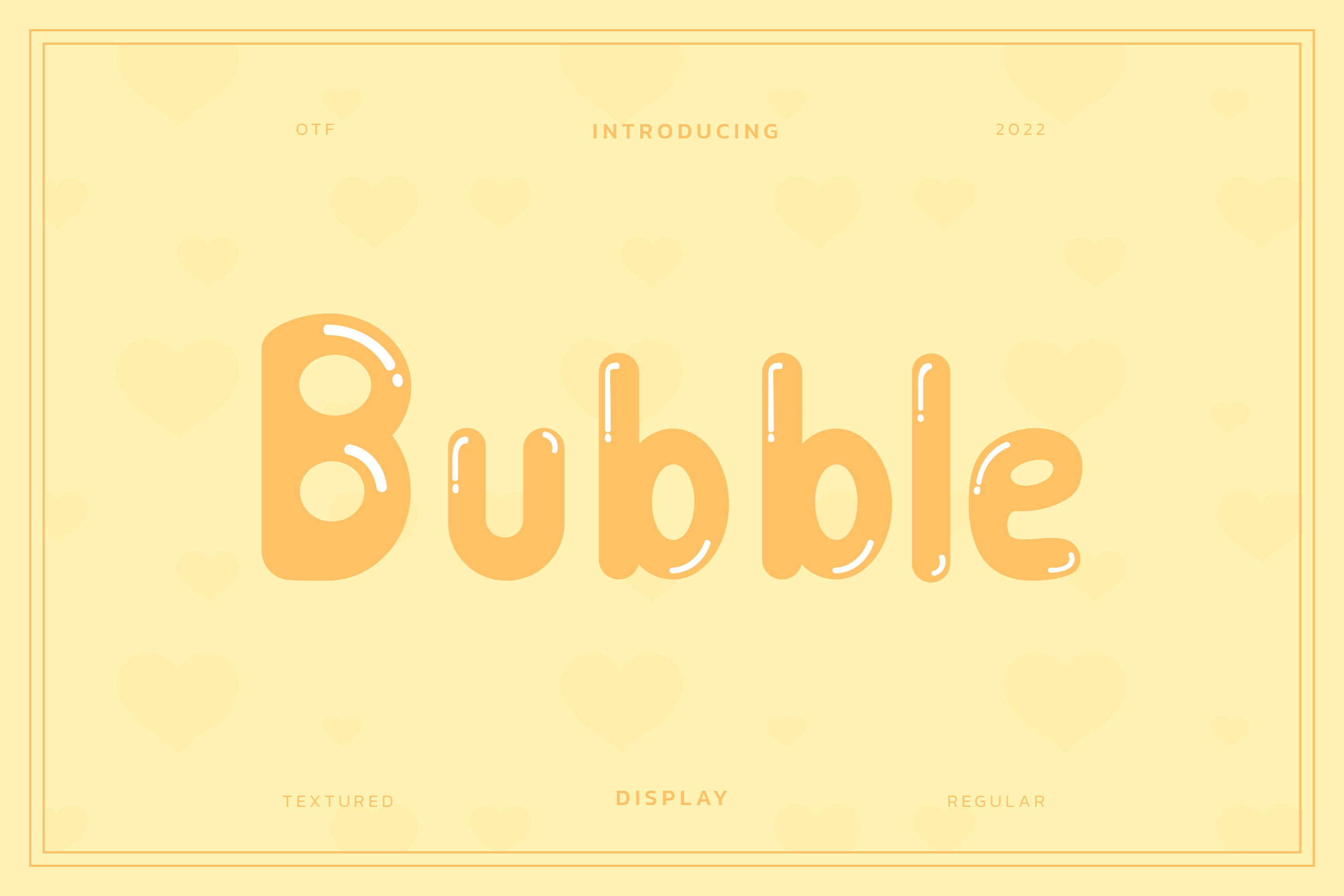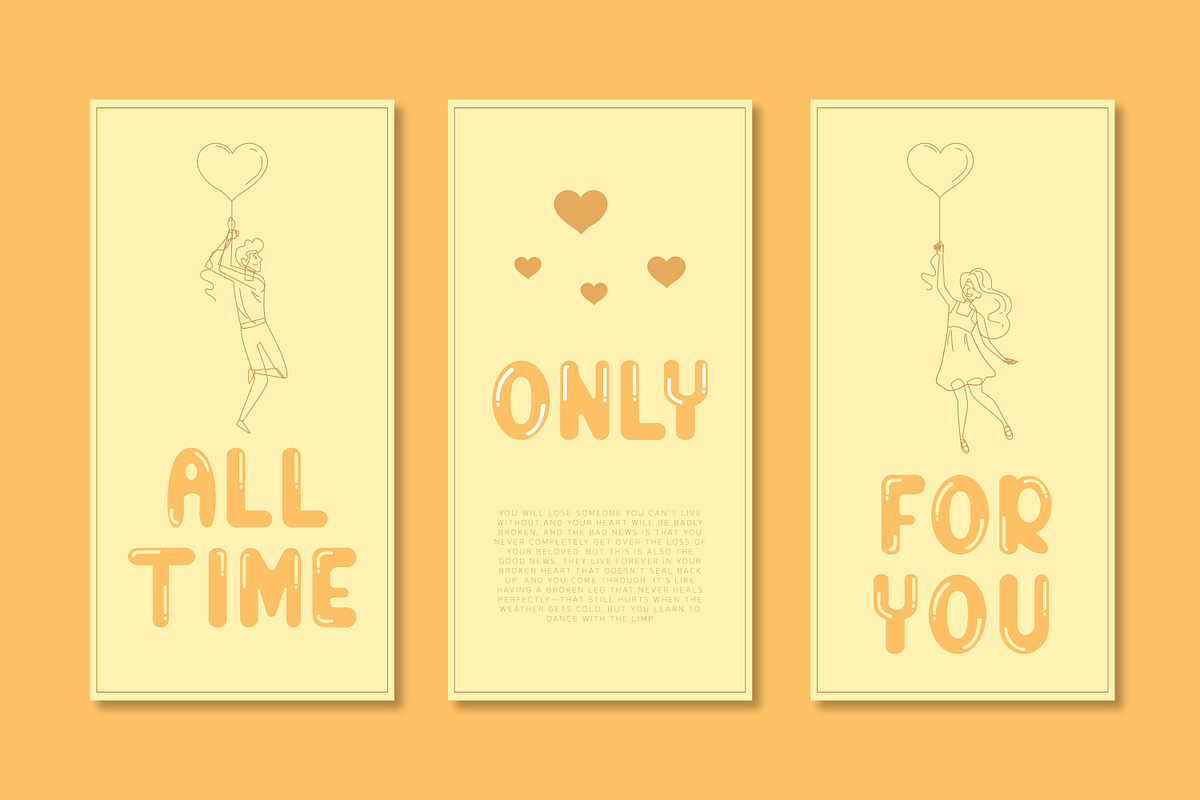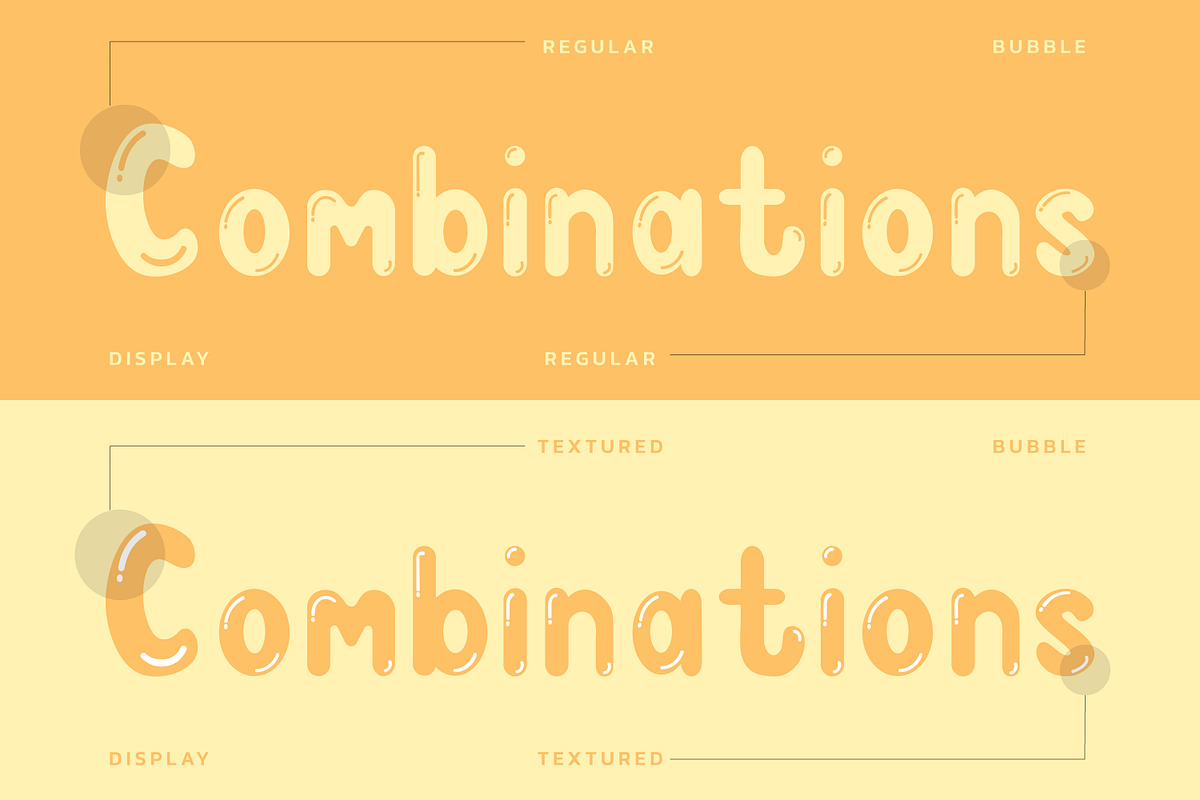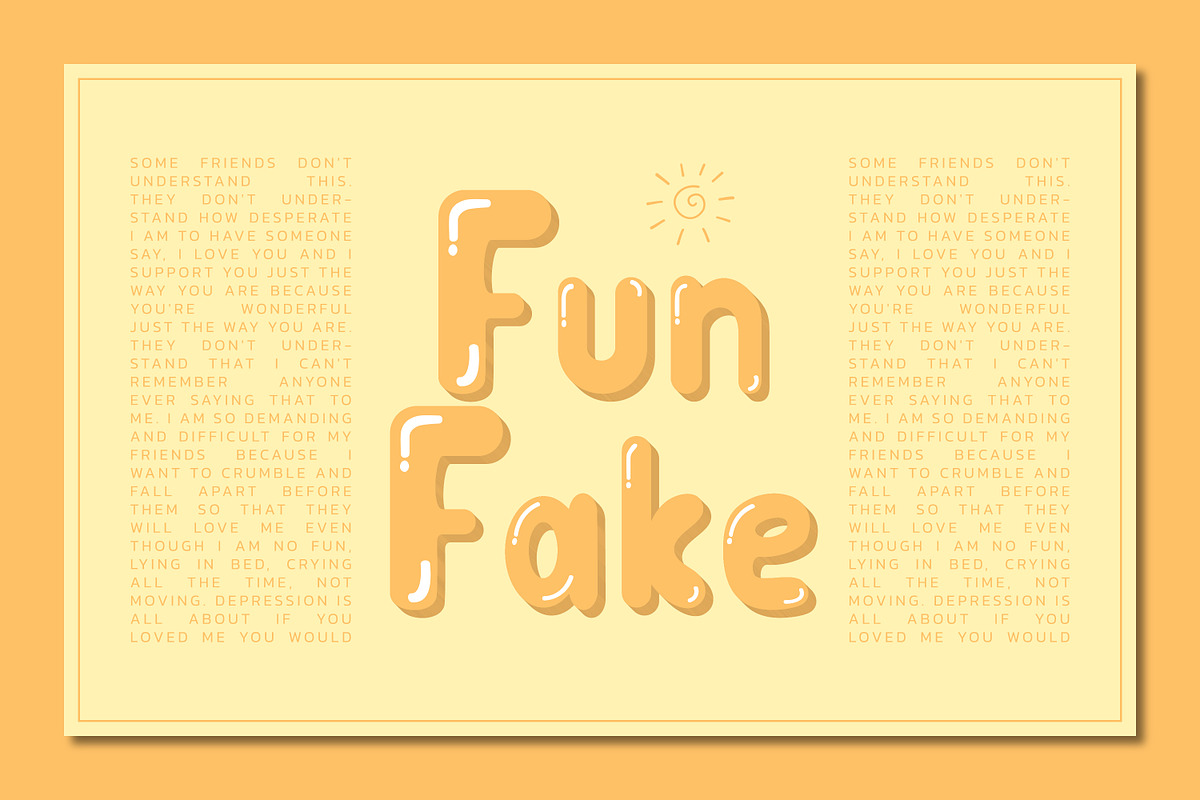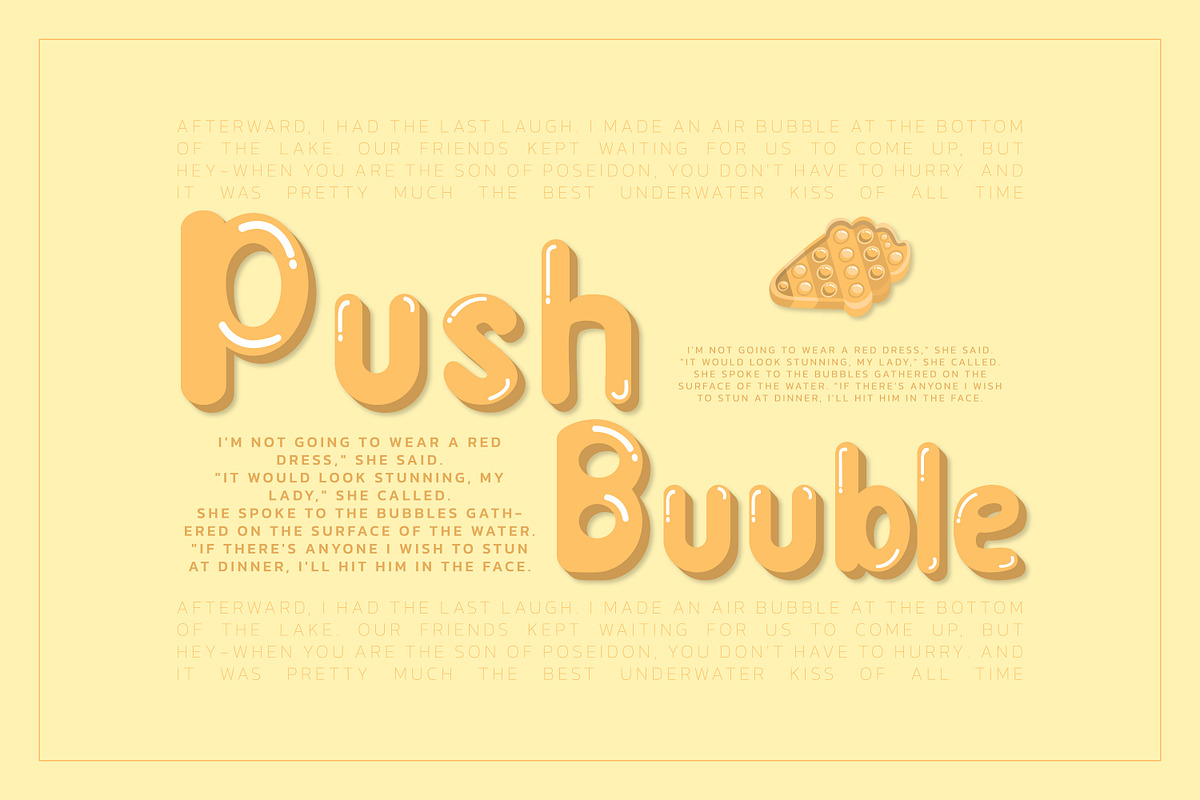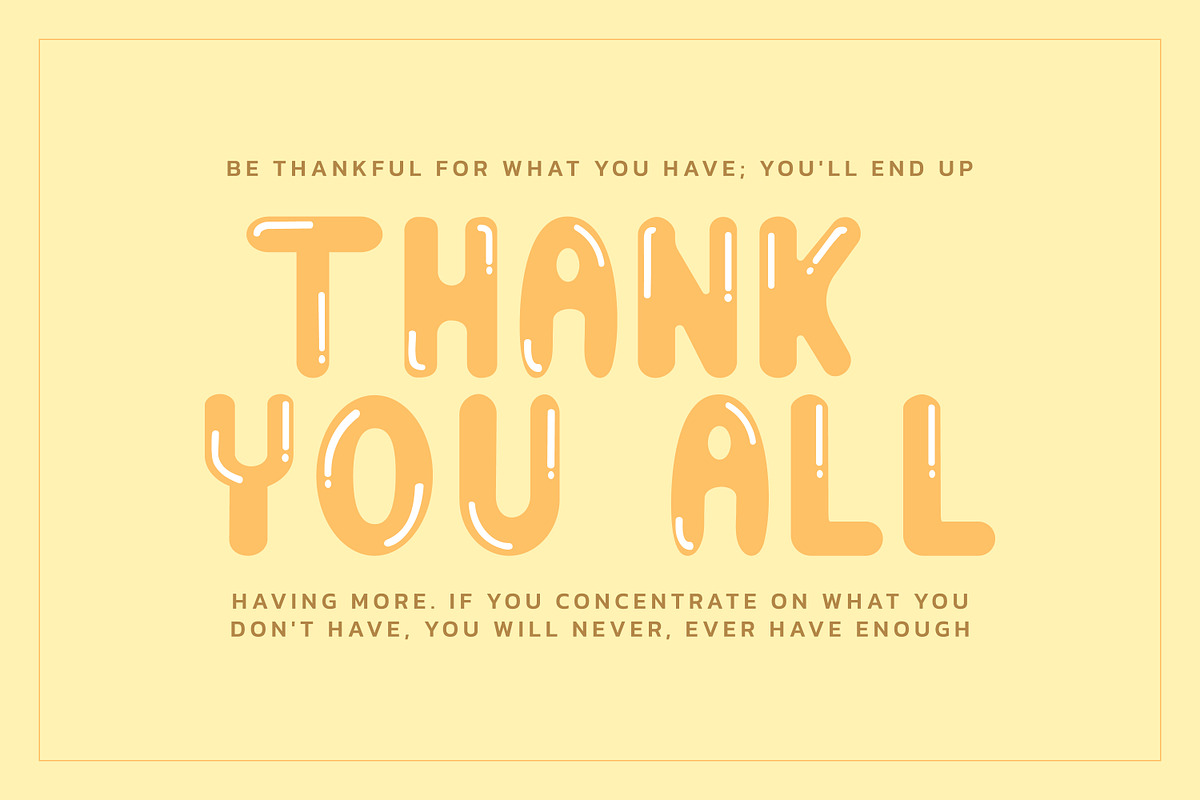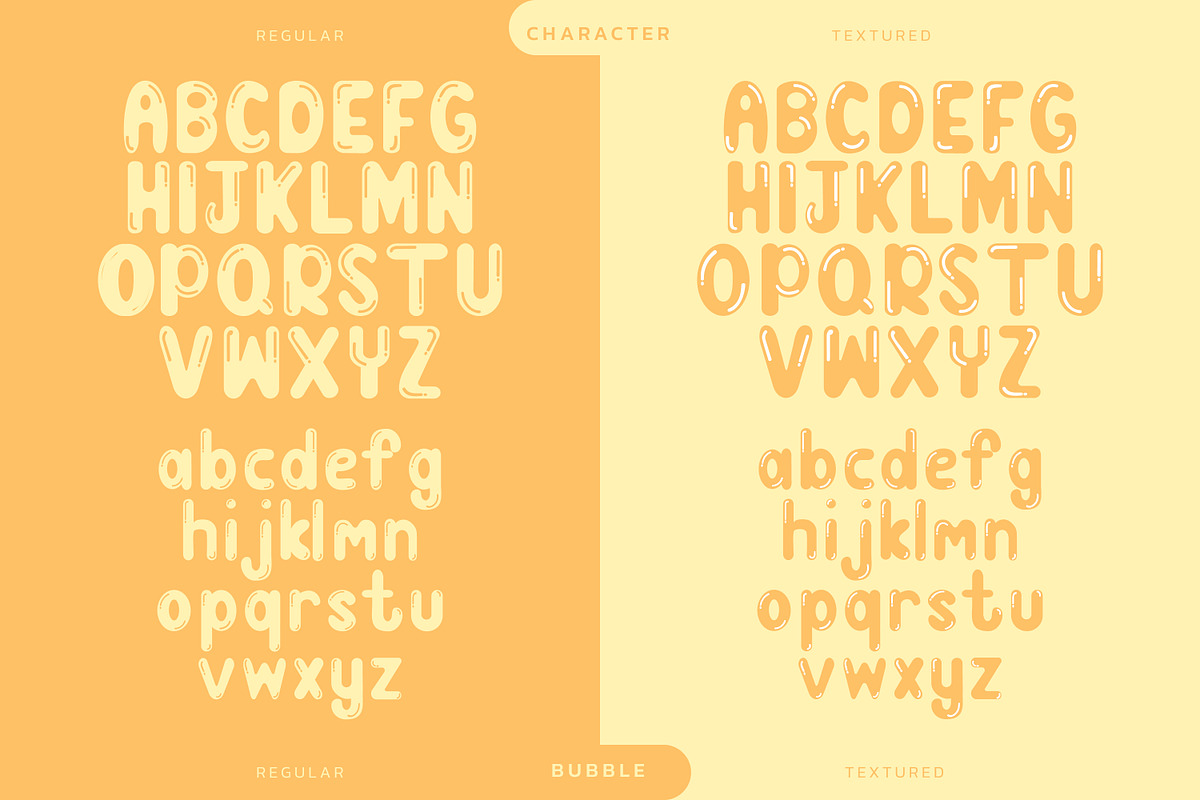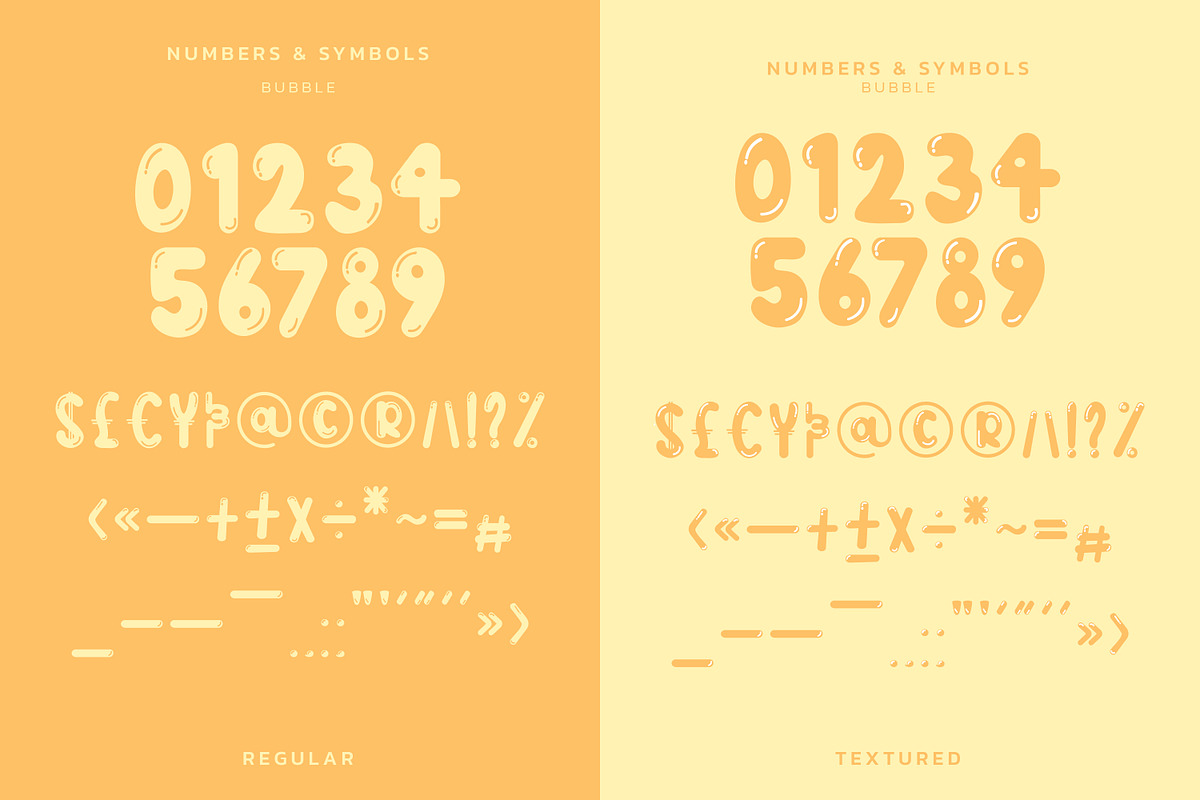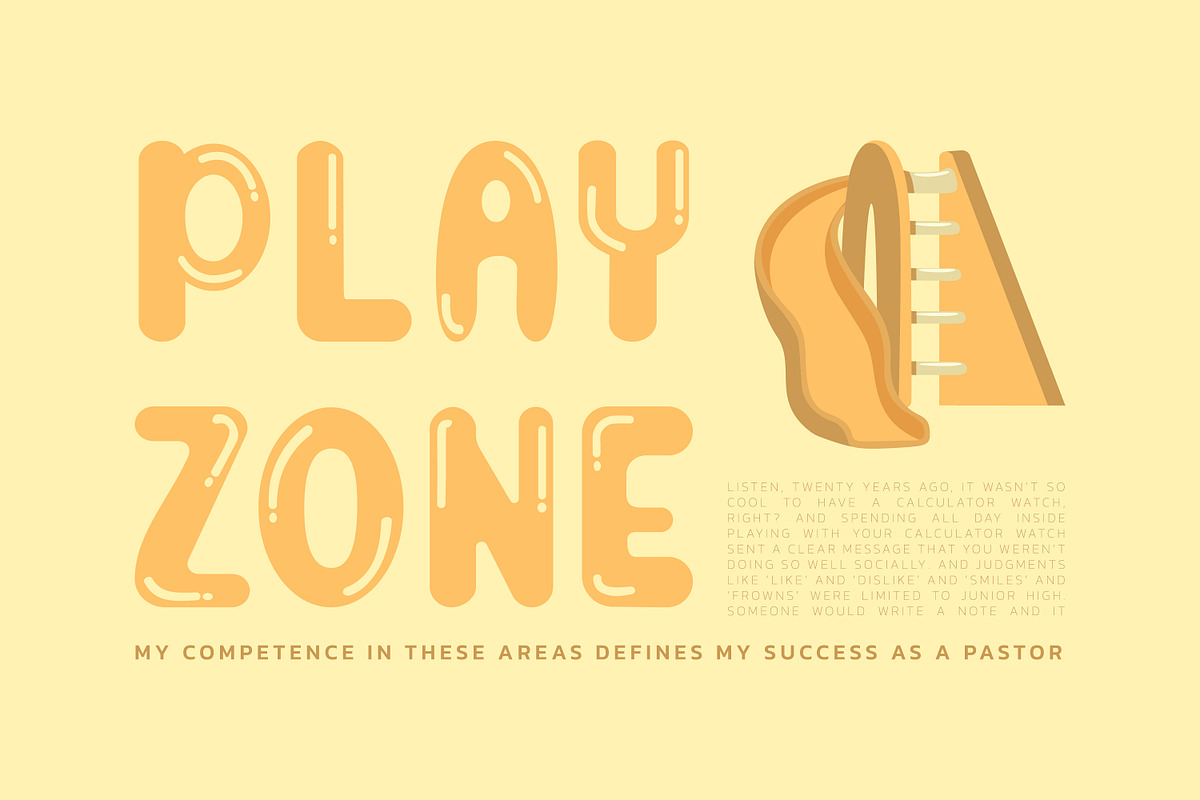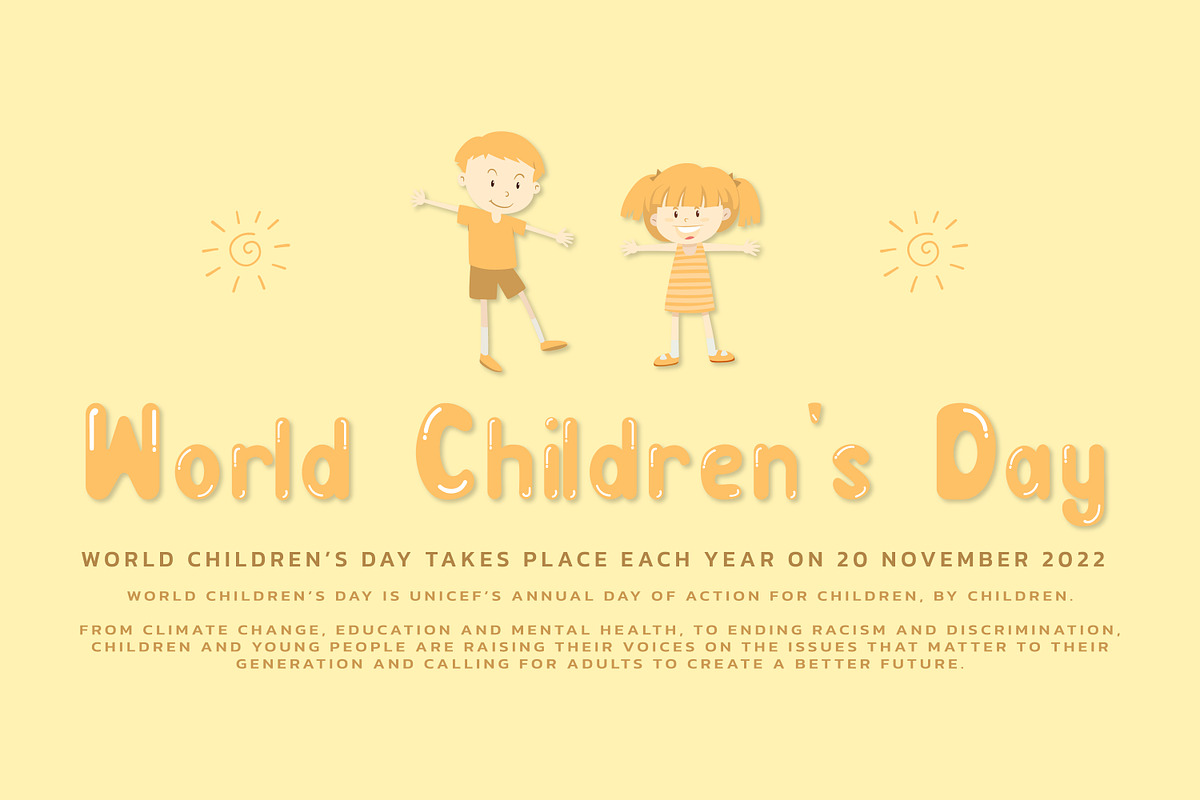
Bubble Cheerful Display Font
Bubble is a fun and cheerful display font full of positivity and character. A friendly typeface with charm and style! This font is perfect for quotes, headings, logos, branding, merchandise, and websites.